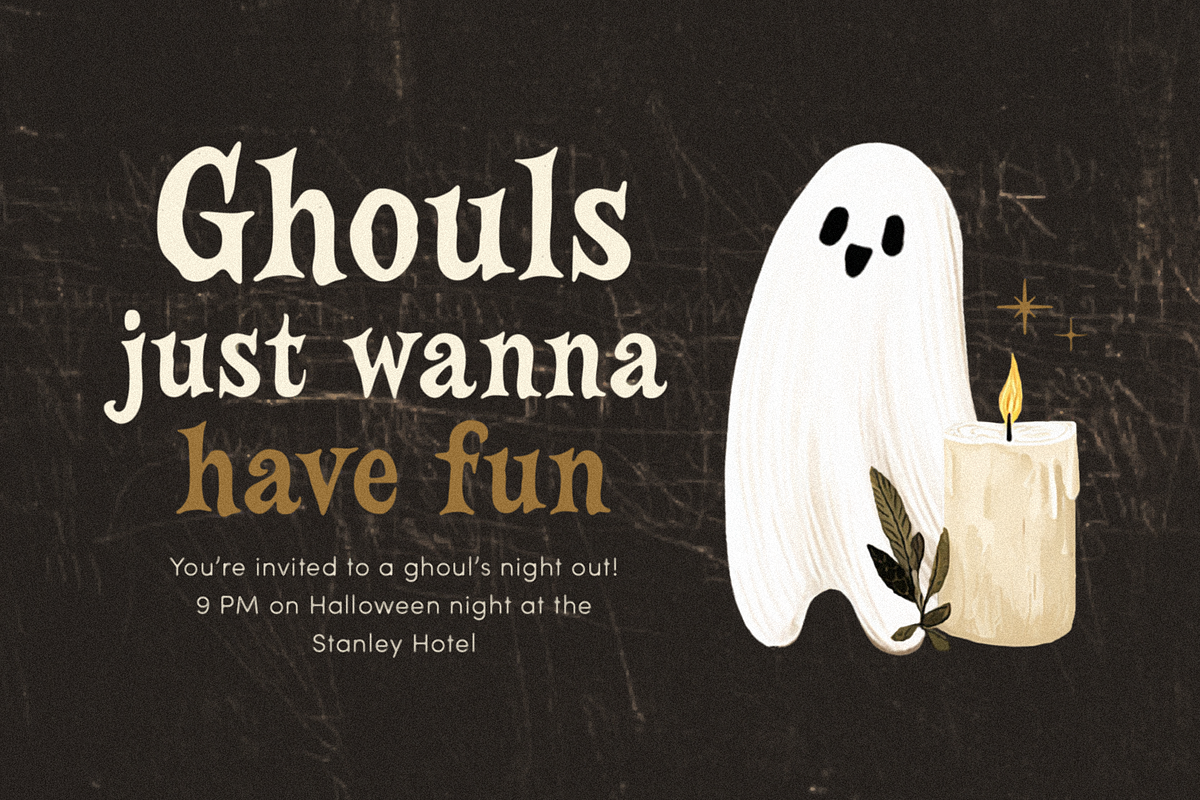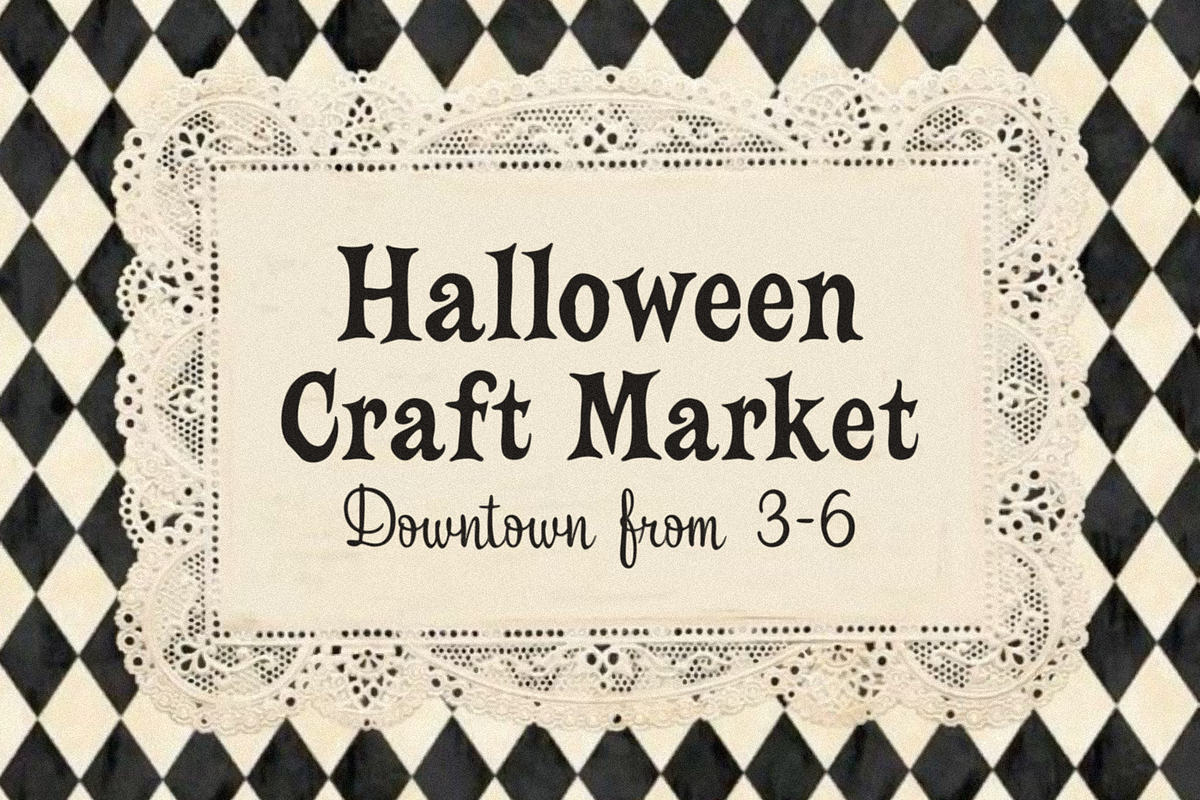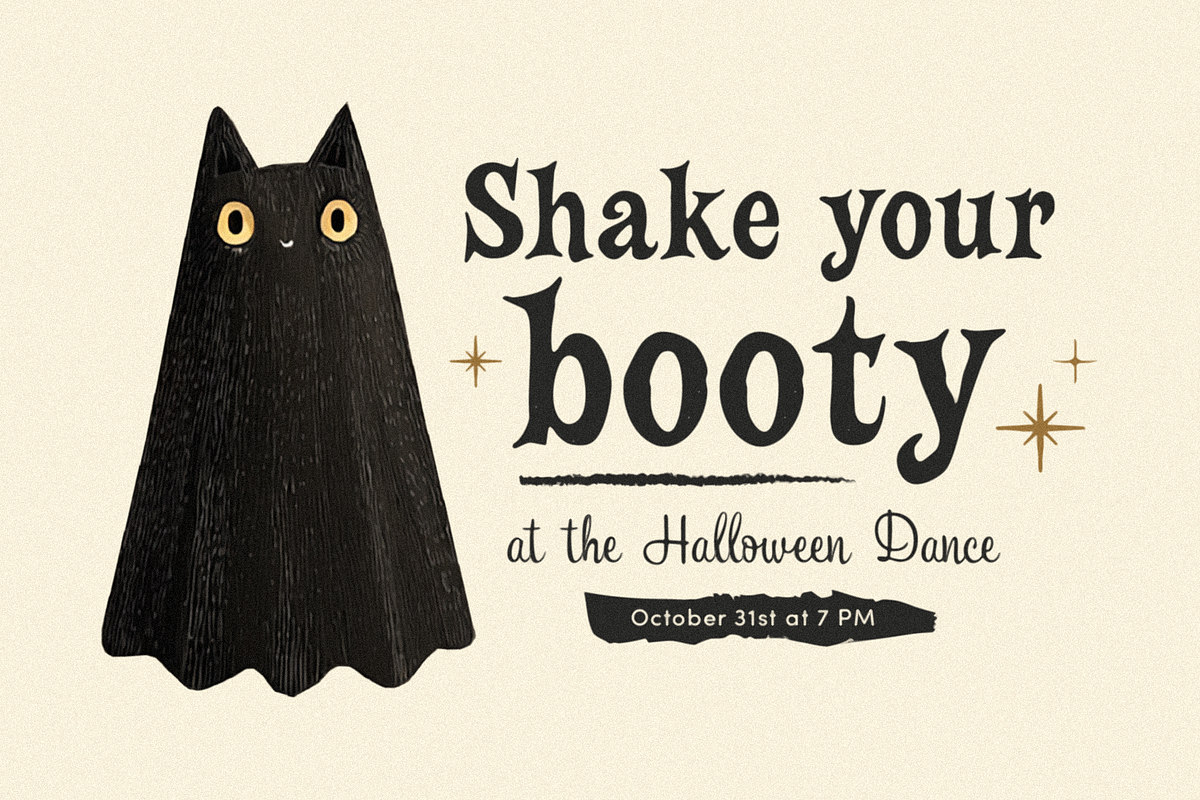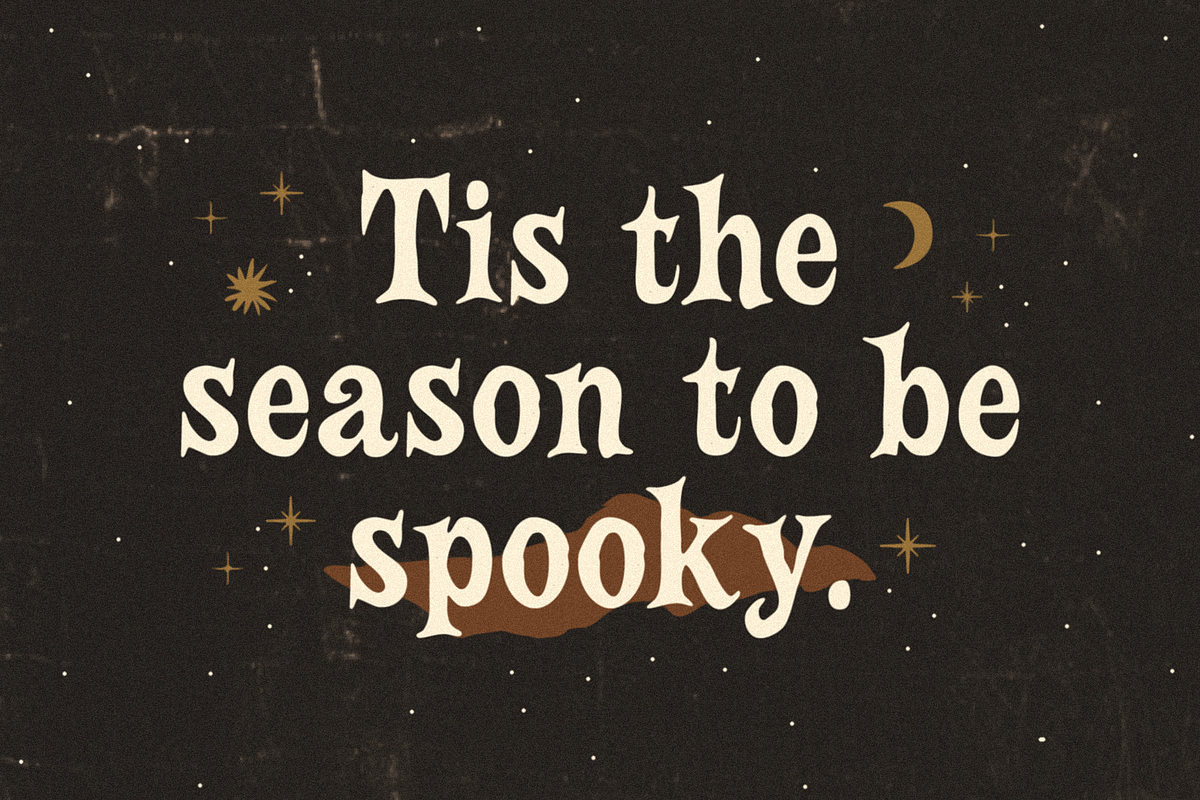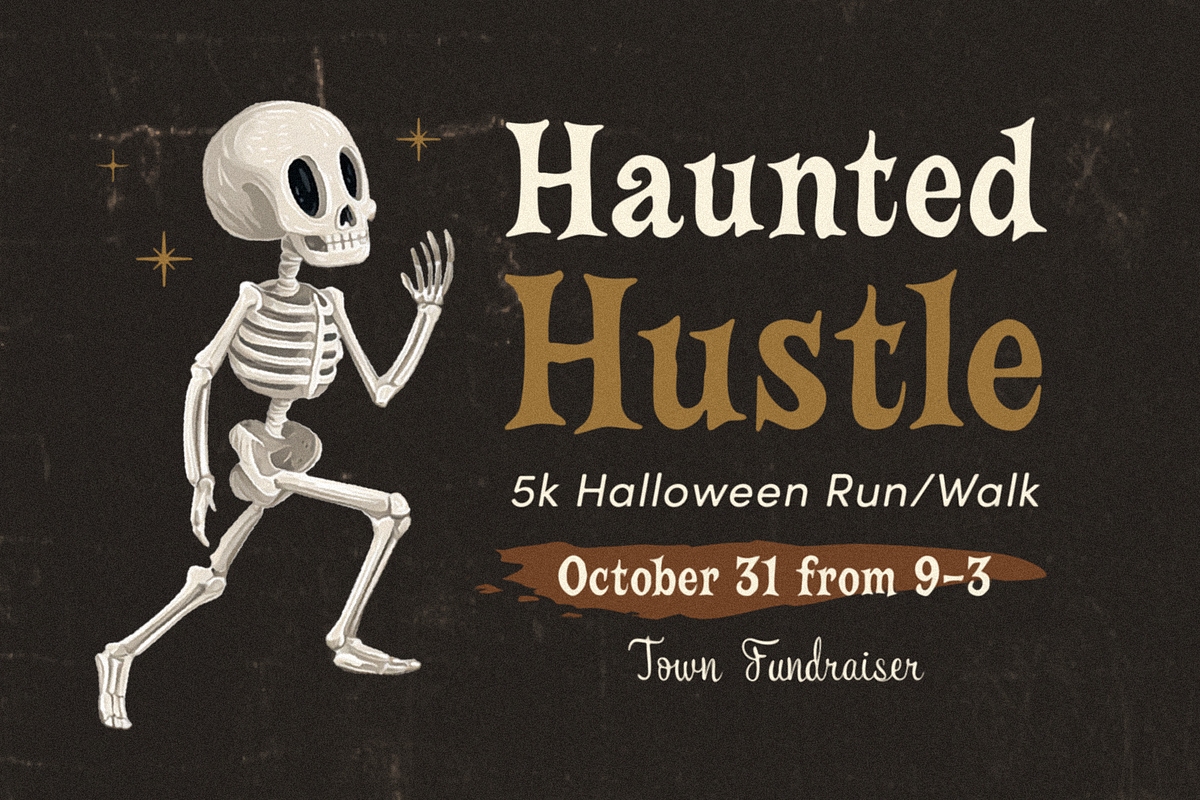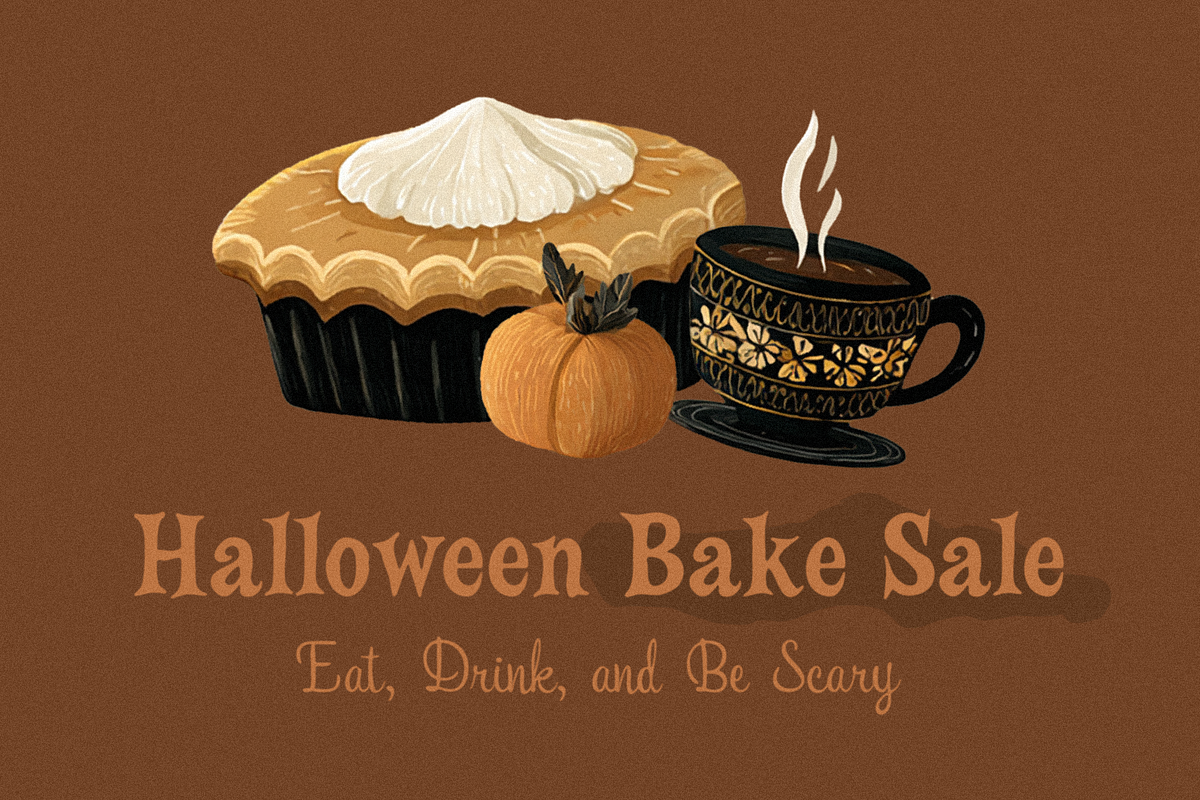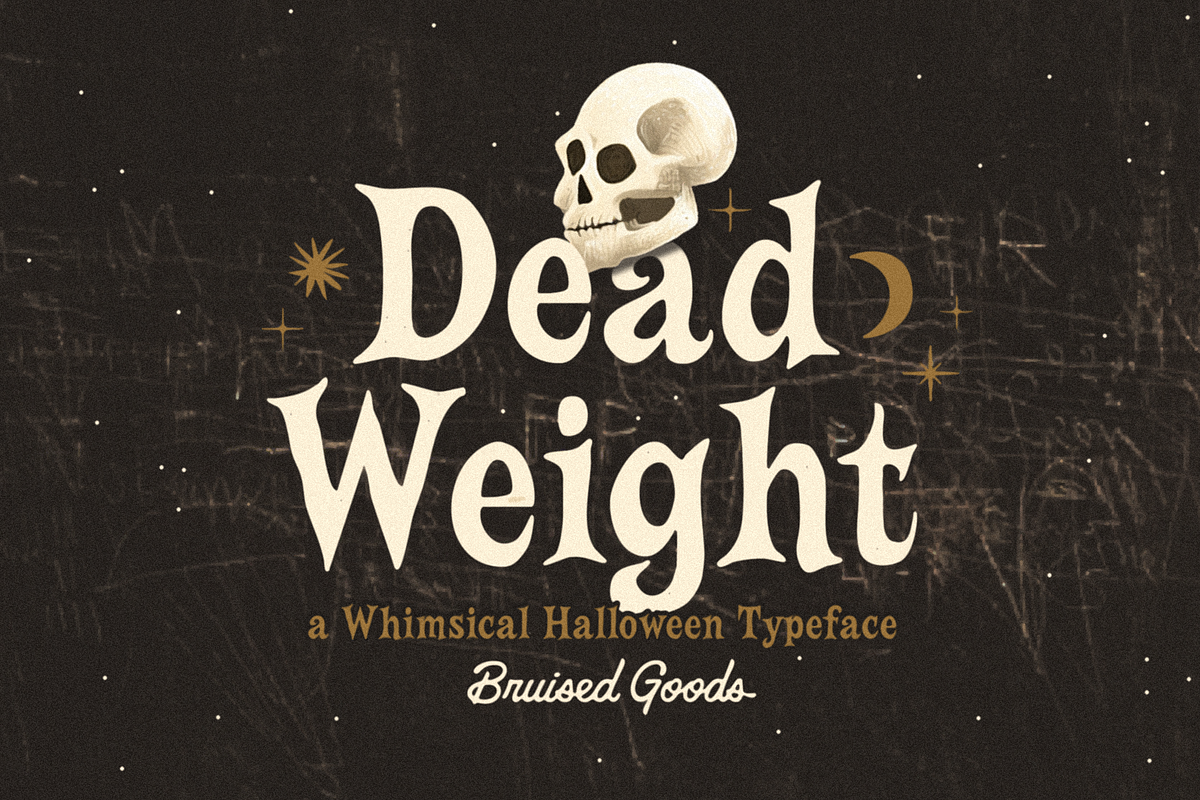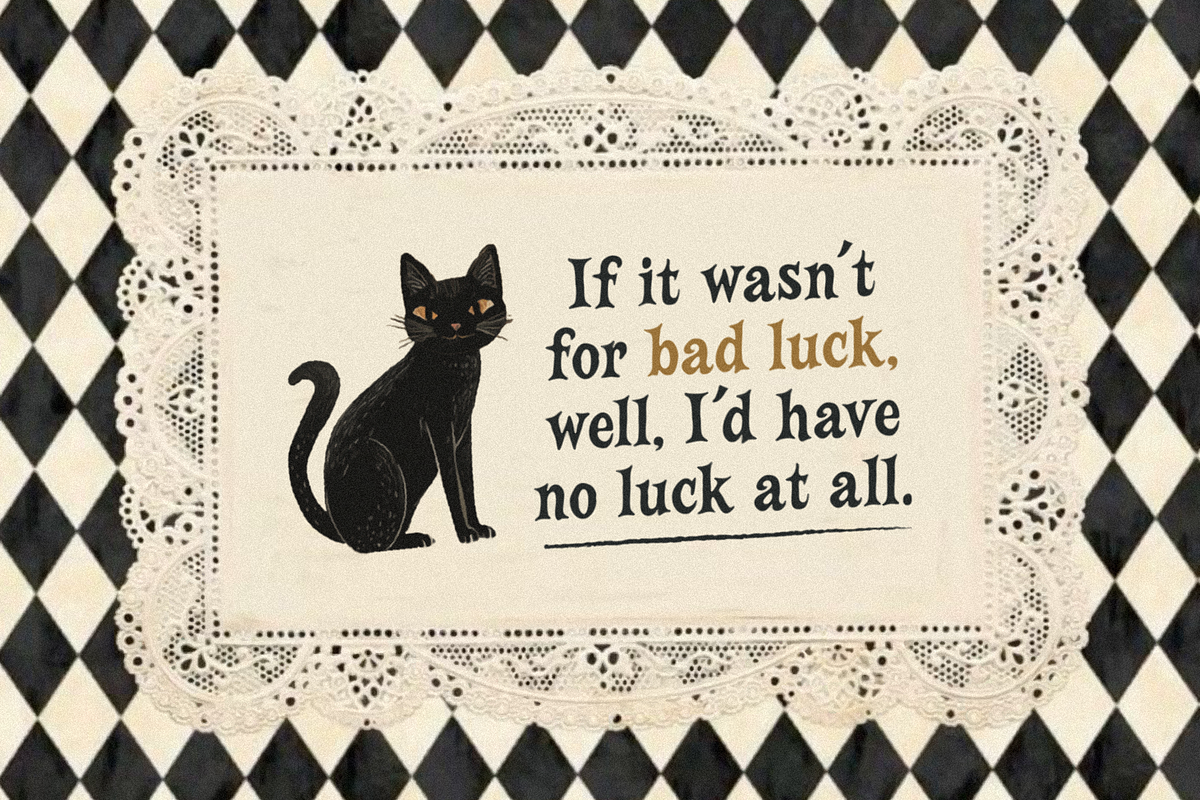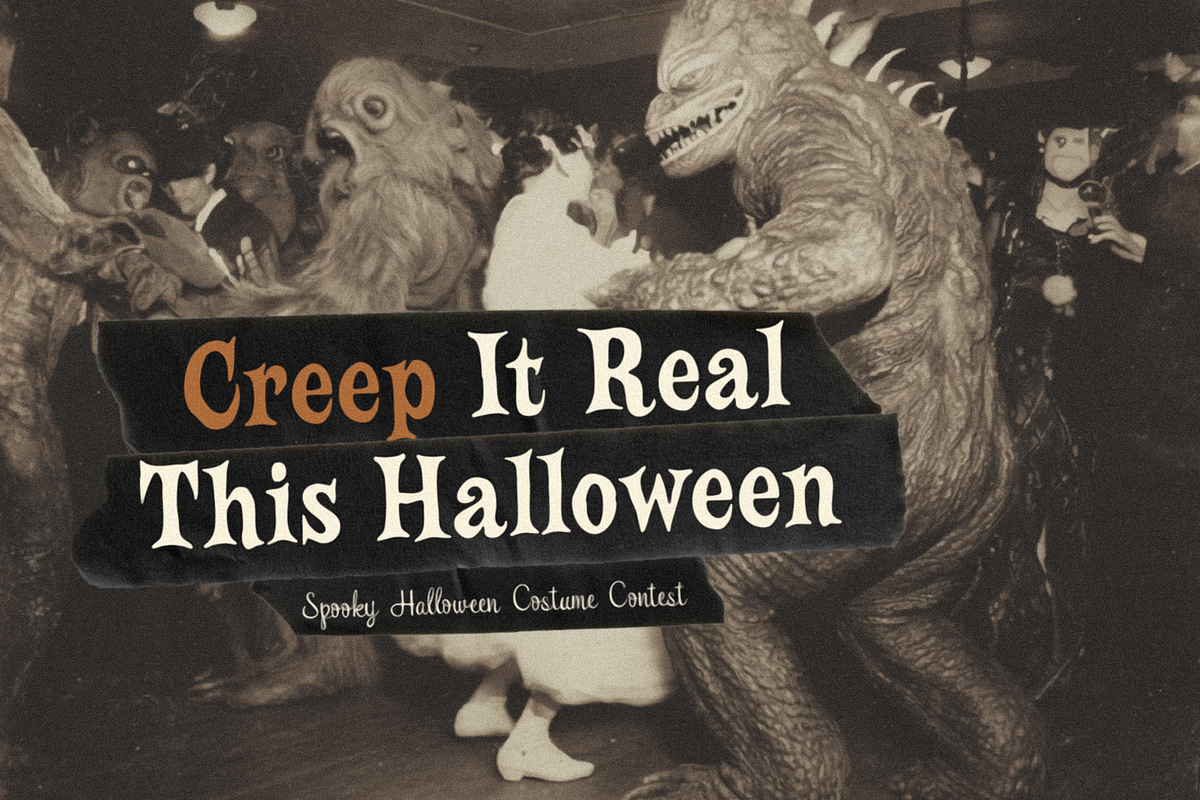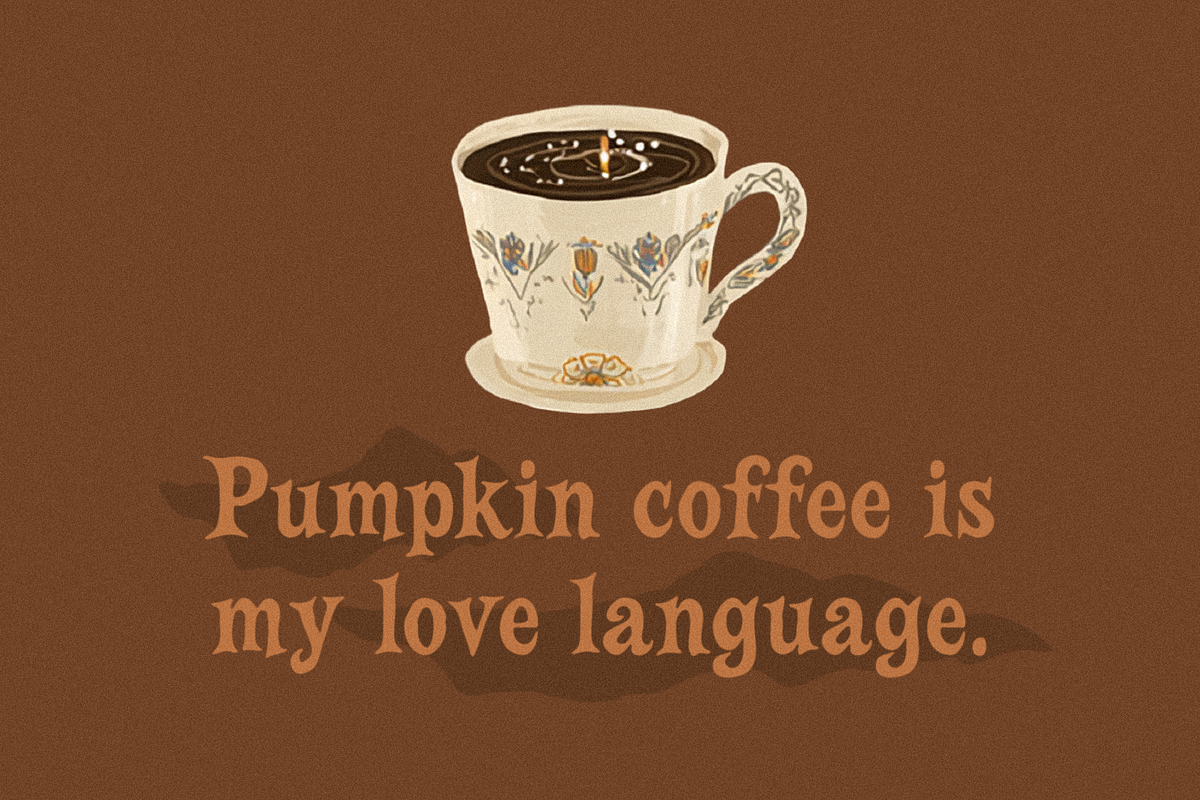
Deadweight + Jack's Lantern
DEADWEIGHT + JACK'S LANTERN (script) – A whimsical Halloween font collection by Bruised Goods.
USE THESE FONTS FOR: ads, album covers, apparel, cards, flyers, invitations, logos, menus, merchandise, packaging, signage, web, and more.
- 380 Glyphs Total: Uppercase and Lowercase Characters, Numbers, Symbols, and Punctuation.